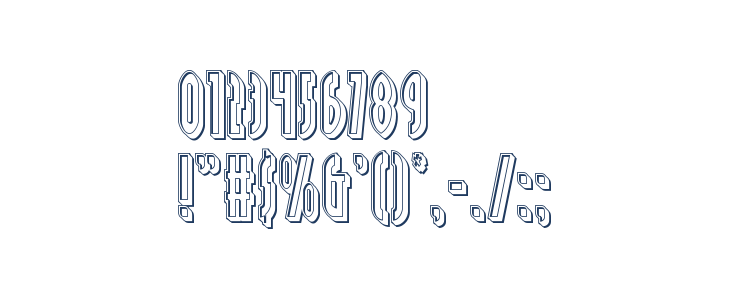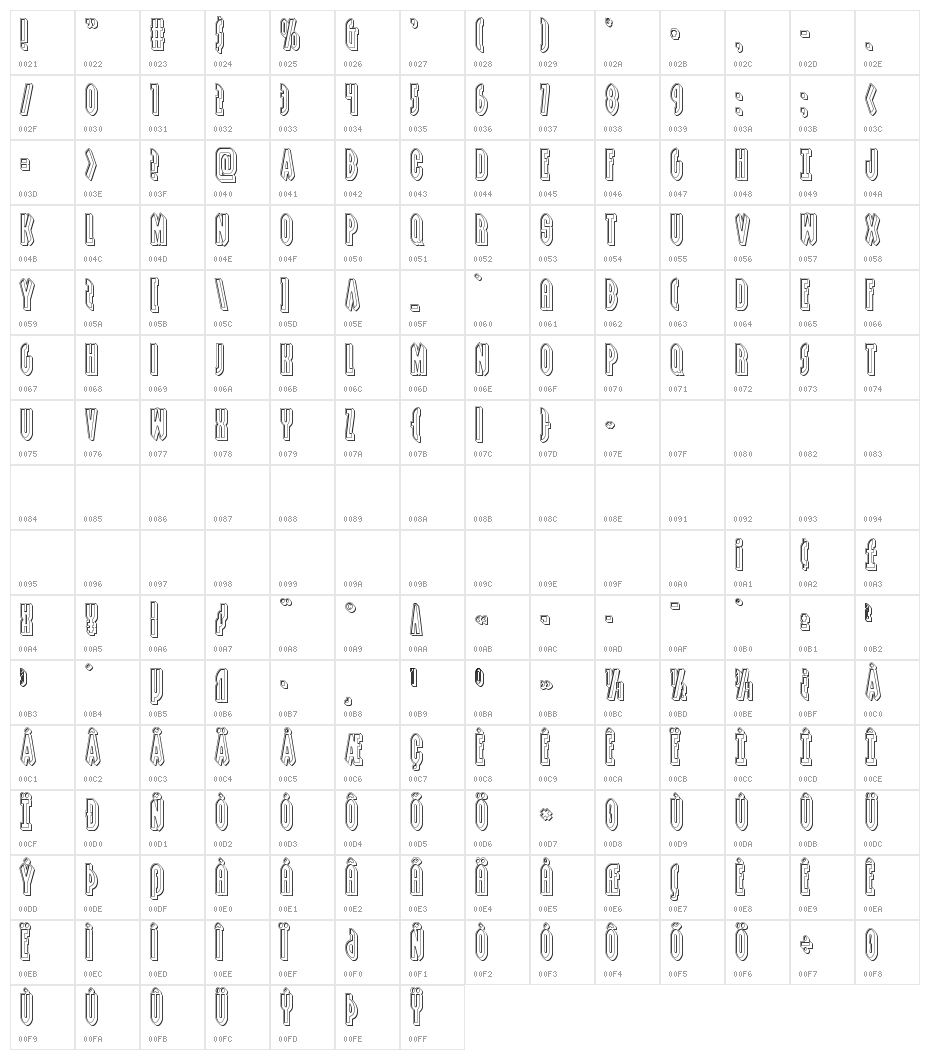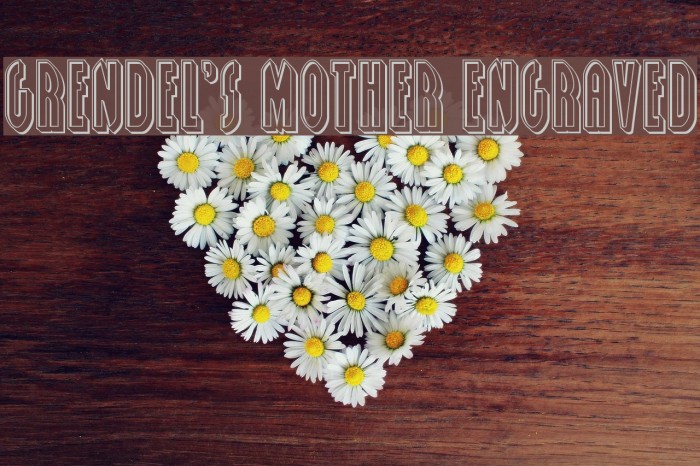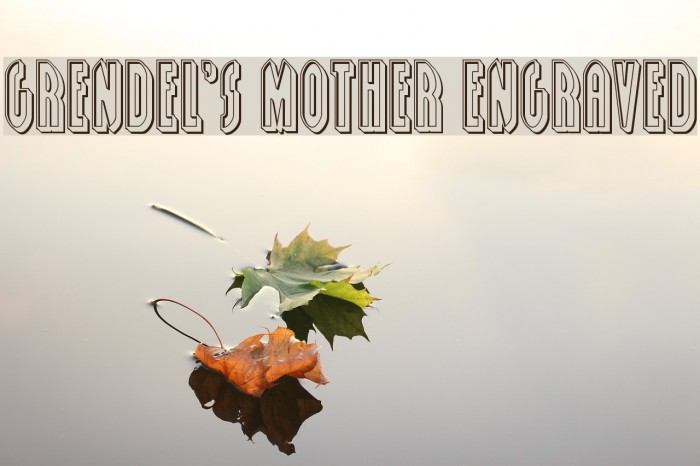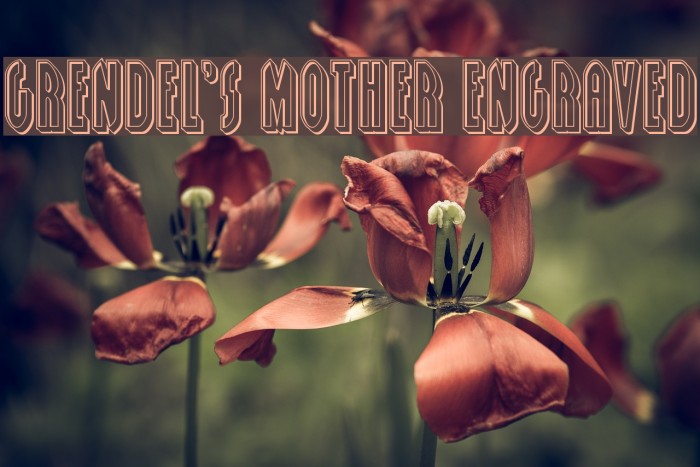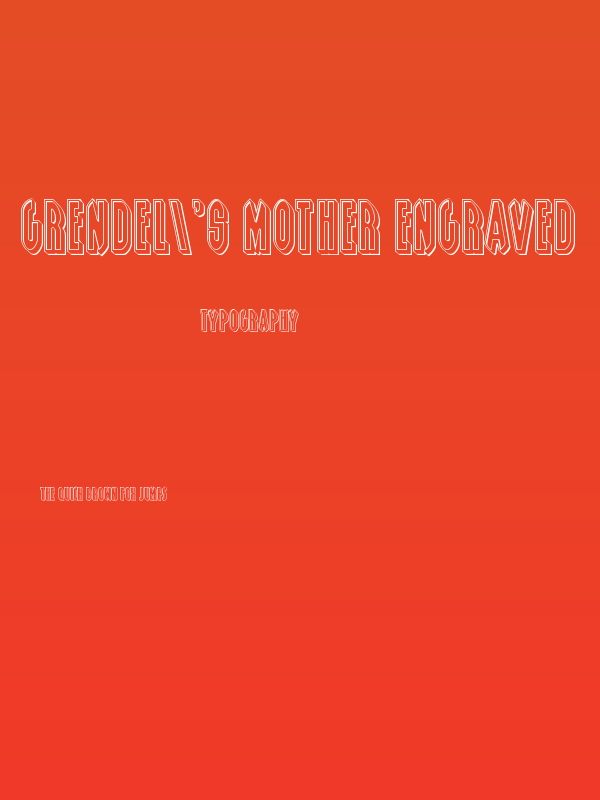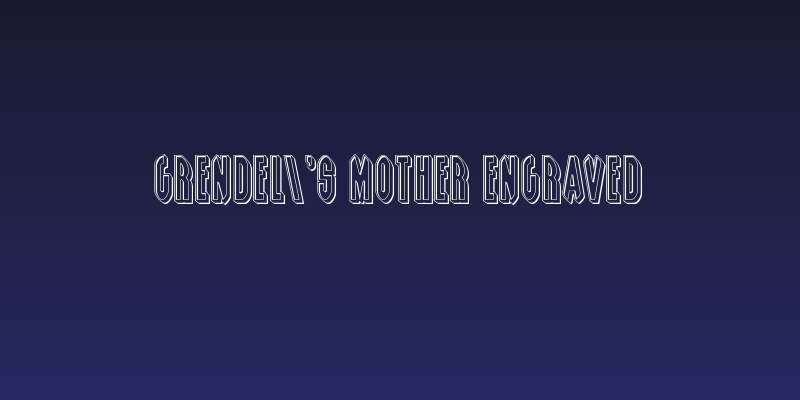
Grendel's Mother Engraved Font
Grendel's Mother Engraved Description
This font features a bold, decorative style with a three-dimensional engraved effect. The uppercase letters are prominent and striking, with thick lines and sharp angles that create a sense of depth. The lowercase letters maintain the same boldness and angularity, ensuring consistency throughout the typeface. Numbers and special characters are designed with the same engraved style, making them stand out. The font's unique appearance is ideal for projects that require a strong visual impact.